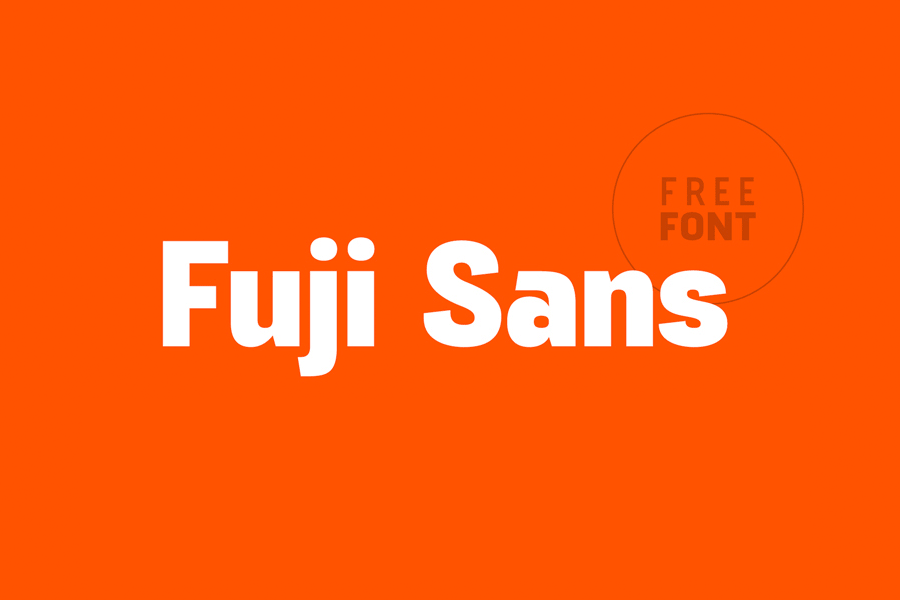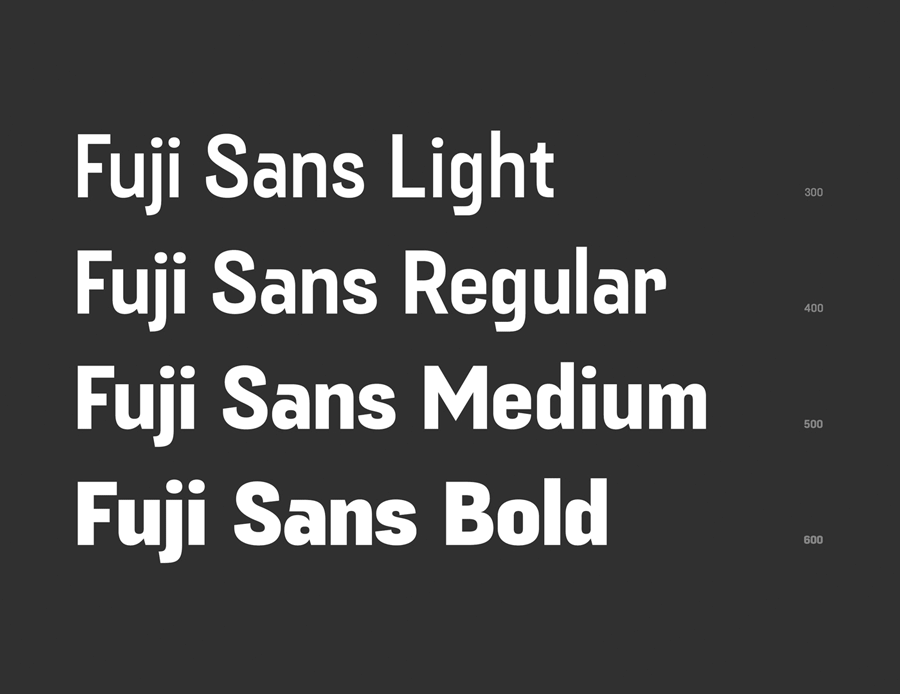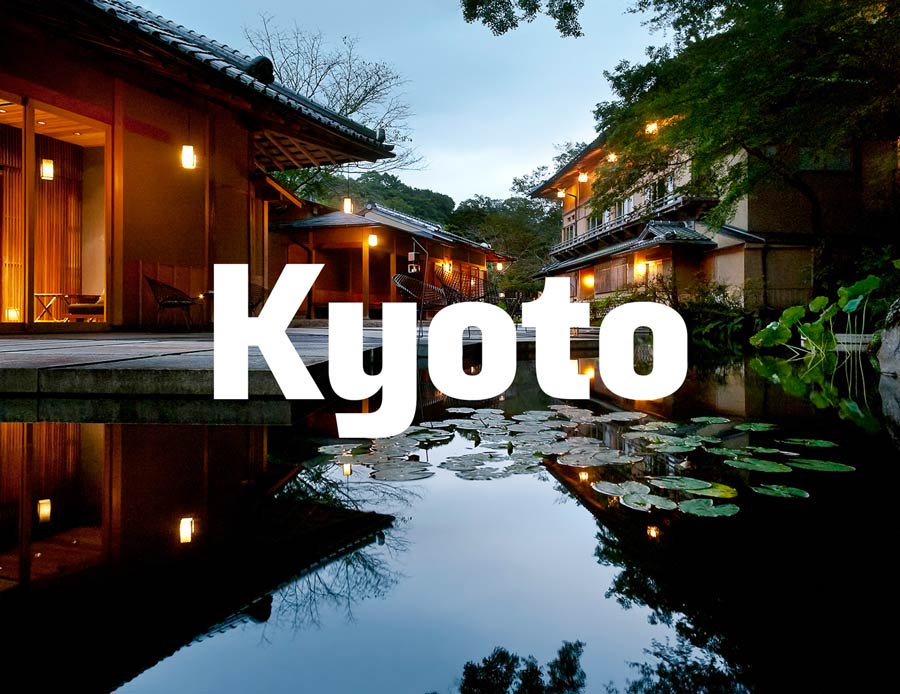
Fuji Sans is a beautifully designed, bold sans serif font that is free to download for personal use. The font is slightly condensed, allowing this font to be perfectly fitted on bold headlines and branding. It comes with 4 nifty weights, completed with 350 glyphs including extended latin character support.
The name itself suggested that this font will works well with oriental design, especially Japanese related work. And I really like the font name, which is derived from the highest mountain in Japan, Mount Fuji.